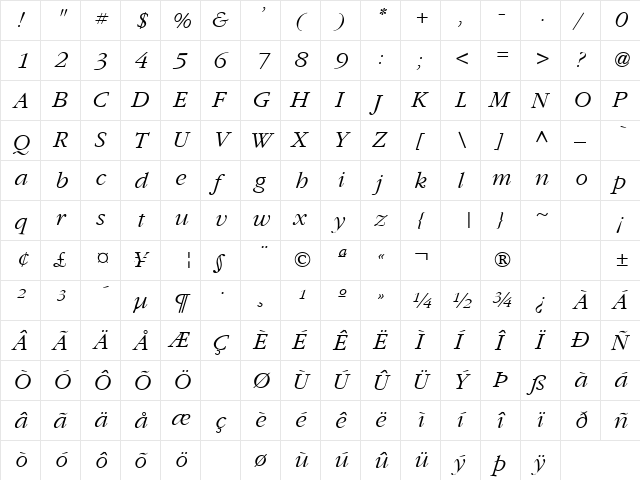
Sight For Sore Eyes 1 Italic
Design Context for Sight For Sore Eyes 1 Typeface
Sight For Sore Eyes 1 offers clean, dependable letterforms without strong stylistic allegiance, making it a practical choice for designers who need flexibility. The slanted form adds forward momentum and visual energy.
Pro Tip: Try Sight For Sore Eyes 1 for annotation and caption copy alongside an upright companion — the contrast in angle creates a dynamic but ordered typographic system.